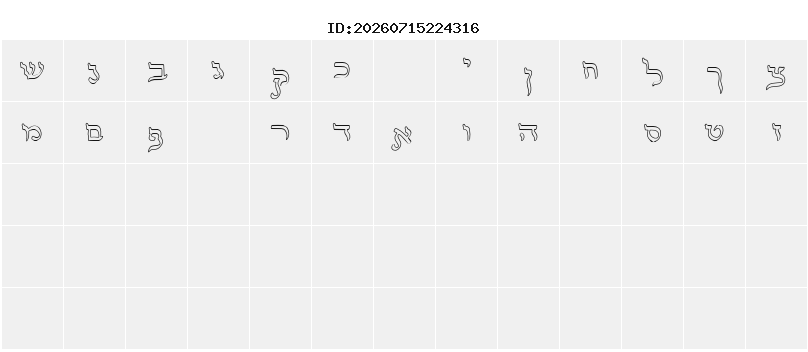
• Font Name: Asher Hollow
• Full Font Name: Asher Hollow Normal
About Asher Hollow.ttf
Asher Hollow.ttf is a modern, elegant sans-serif font designed for ultimate readability and visual harmony. Perfect for branding, headlines, web design, and print materials.